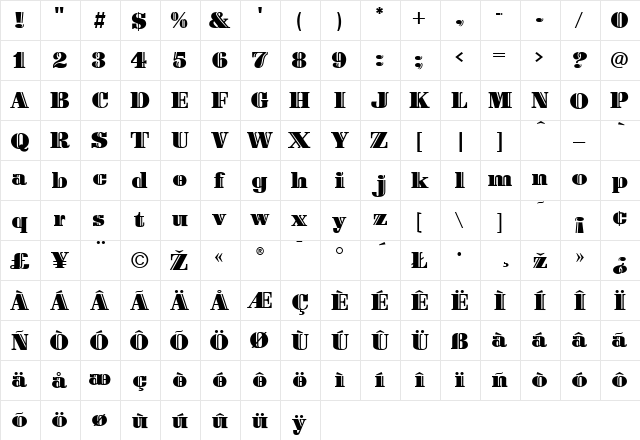
Tulipa Regular
Design Context for Tulipa Typeface
Tulipa offers clean, dependable letterforms without strong stylistic allegiance, making it a practical choice for designers who need flexibility.
Pro Tip: Use Tulipa in both headline and body roles to test its range before committing to a single application.